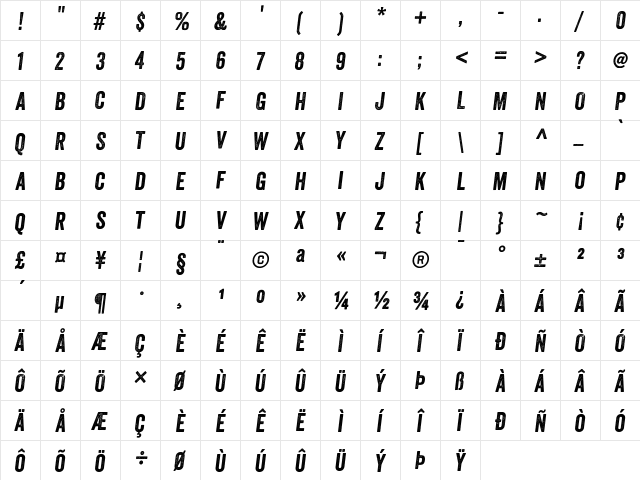
Veneer Italic Font Preview
Veneer Italic
Veneer Italic Font Details
| Foundry | Ryan Martinson |
| Designer | Ryan Martinson |
Design Context for Veneer Typeface
Veneer is a composed and adaptable typeface that performs quietly and consistently across a wide range of design contexts. Its italic angle brings a sense of urgency and motion to the letterforms.
Pro Tip: Use Veneer for emphasis, pull quotes, and subheadings where its slanted energy can add rhythm to the layout.